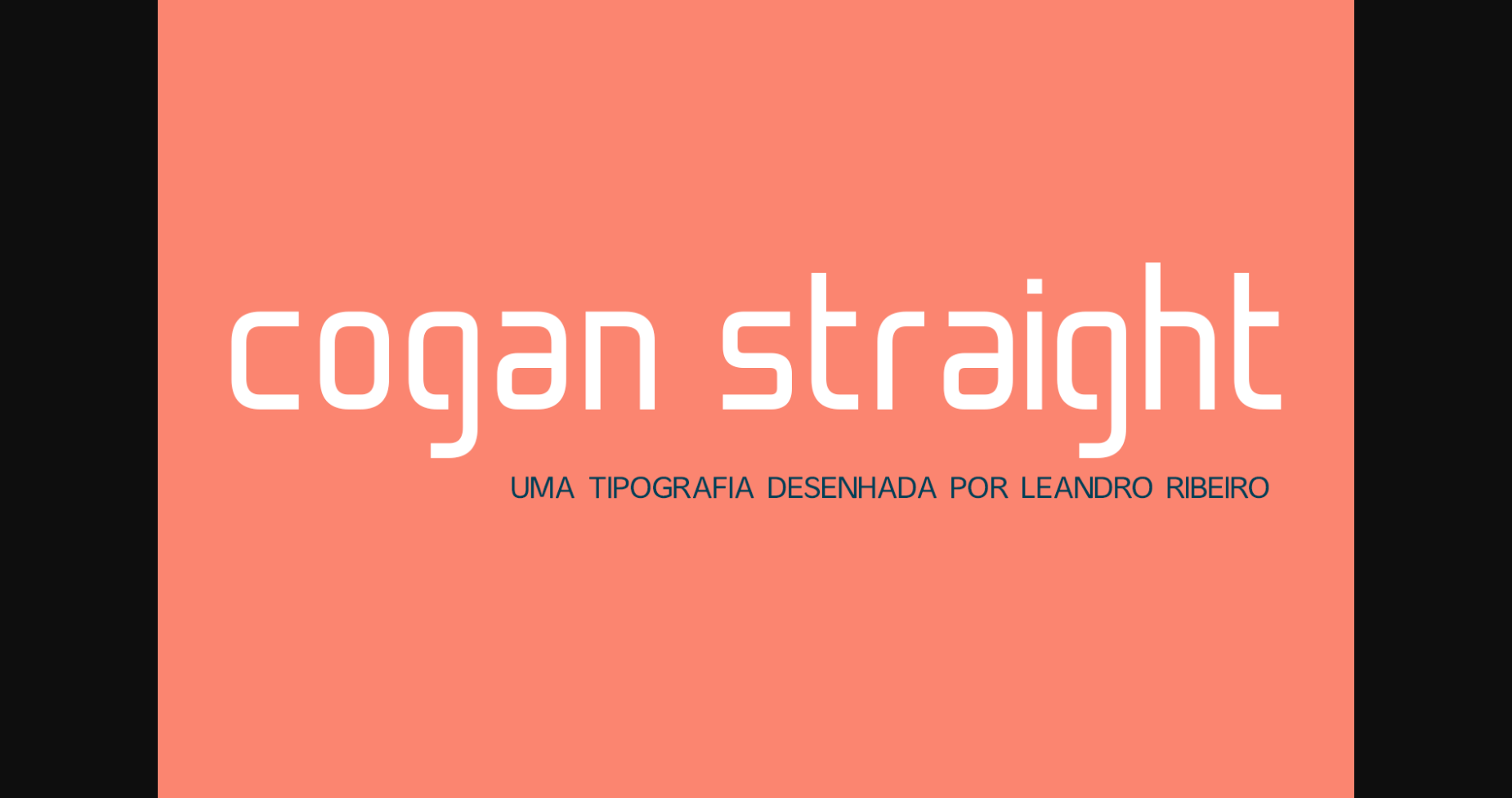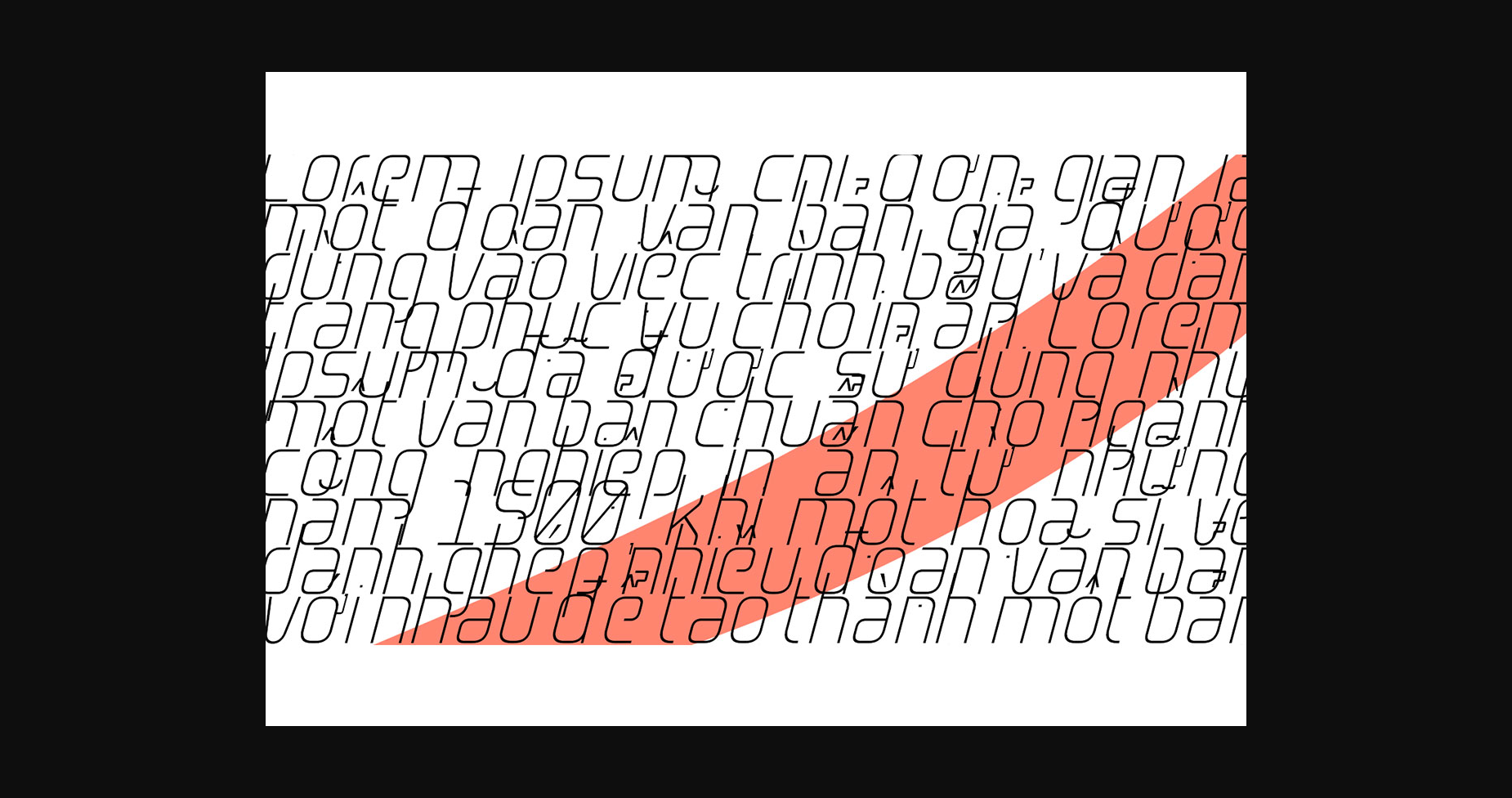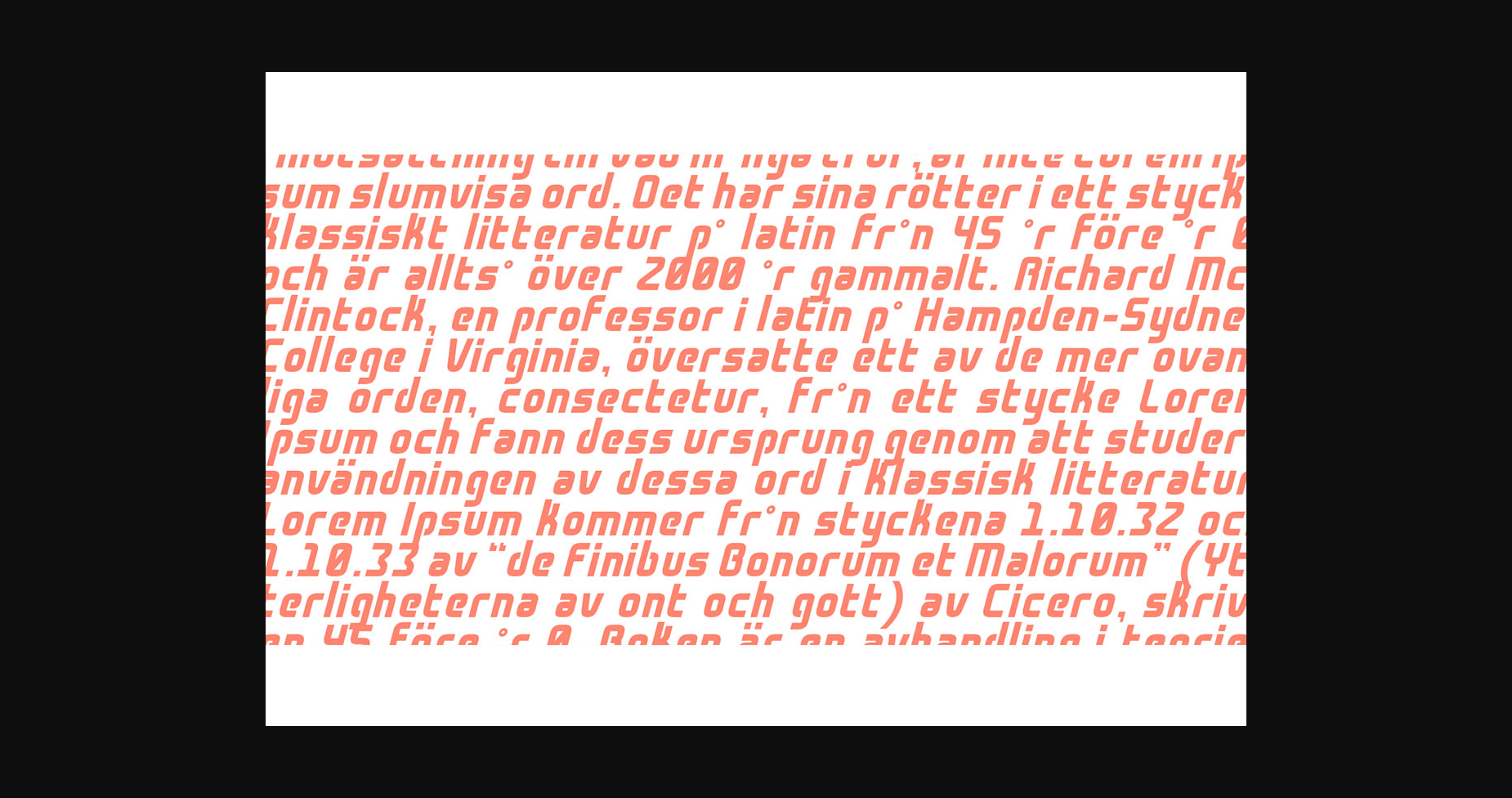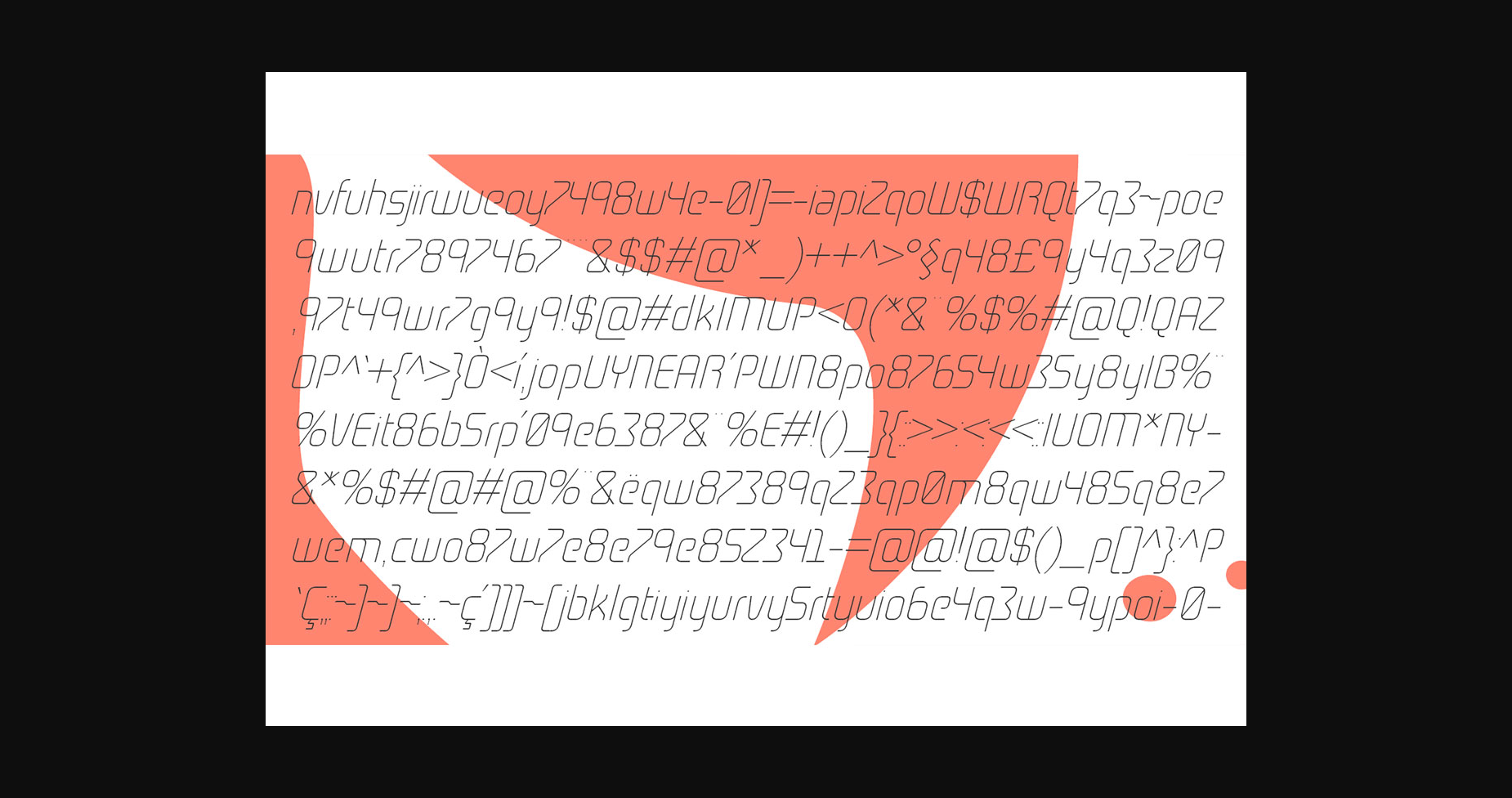
About Cogan Straight Font
Cogan Straight is a simple, cool and modern sans serif font. It is perfect for product packaging, branding project, magazine covers, social media, wedding, or just used to express words above the background.